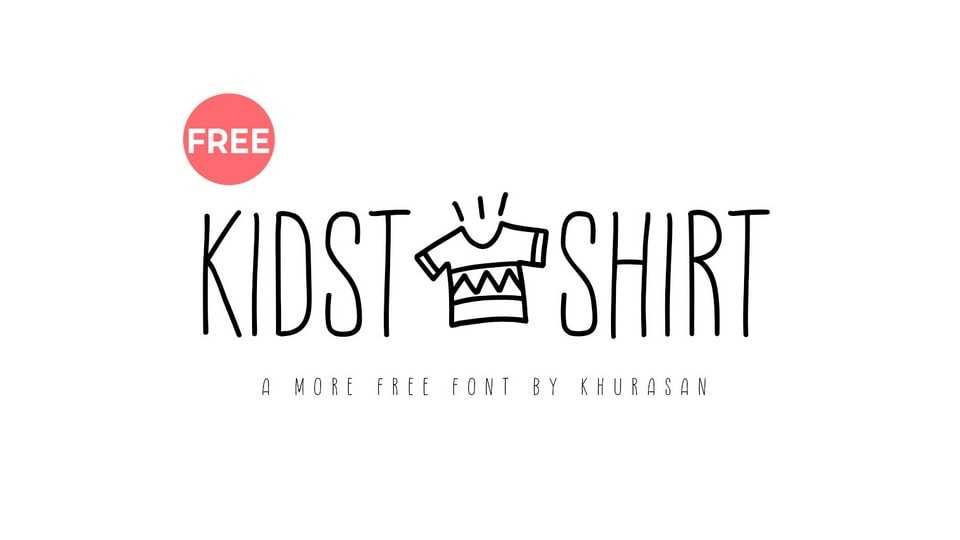
Download Kidstshirt font, a whimsical and tall hand-drawn typeface that elevates your text to new heights of playfulness and charm. The tall and slender design of Kidstshirt gives it a distinctive and eye-catching presence.